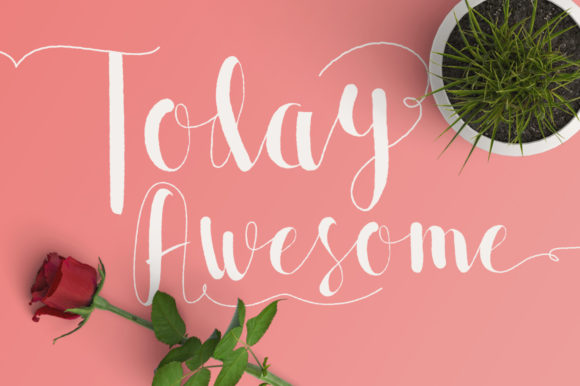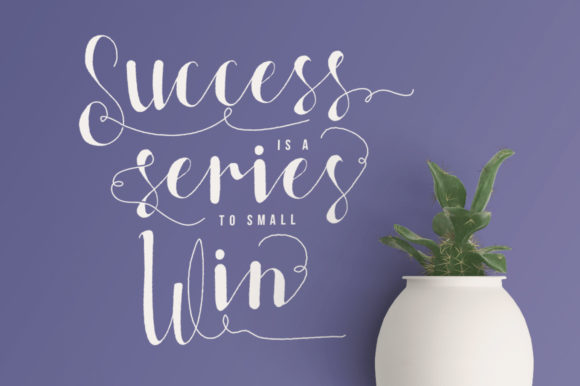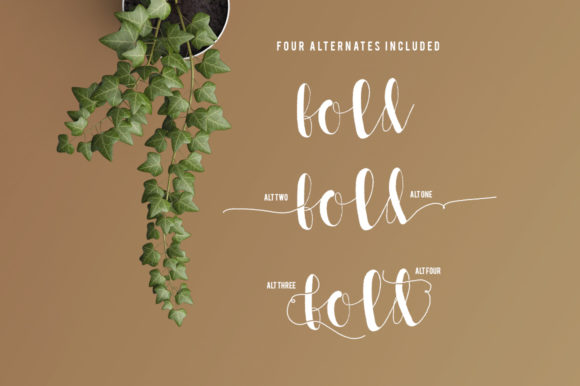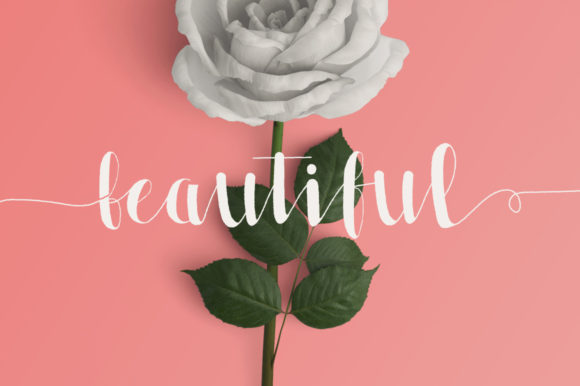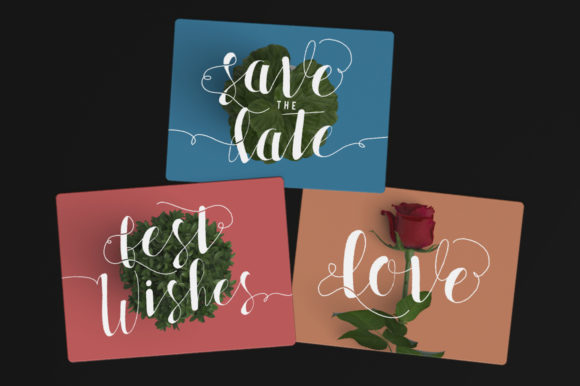
Introducing Allia Font: The Exquisite Handwritten Font for Creative Projects
Are you a designer or crafter looking for a unique and elegant font to elevate your creative projects? Look no further than Allia Font, a beautifully crafted handwritten font that is sure to become a true favorite. With its exquisite design and versatility, Allia Font is perfectly suited for a wide range of applications, from stationery and logos to branding, posters, weddings, and much more.
The Story Behind Allia Font
Allia Font is the brainchild of a talented designer who sought to create a font that would capture the essence of handwritten elegance. With careful attention to detail and a passion for typography, the designer has crafted a font that is both refined and approachable. The result is a font that exudes sophistication and charm, making it perfect for projects that require a touch of personality.
Key Features of Allia Font
So, what makes Allia Font so special? Here are just a few of its key features:
- Exquisite Handwritten Design: Allia Font boasts a beautiful, handwritten design that is sure to capture the hearts of designers and crafters alike.
- Versatility: Whether you’re working on a stationery project, logo, branding campaign, poster, or wedding invitation, Allia Font is the perfect choice.
- Elegant and Refined: With its elegant lines and refined aesthetic, Allia Font is perfect for projects that require a touch of sophistication.
- Easy to Read: Despite its elegant design, Allia Font is surprisingly easy to read, making it perfect for body text and headlines.
Uses for Allia Font
So, what can you use Allia Font for? The possibilities are endless! Here are just a few ideas to get you started:
- Stationery: Create beautiful stationery sets, including notecards, letters, and journals, with Allia Font.
- Logos and Branding: Use Allia Font to create stunning logos and branding materials that will set your business apart.
- Posters and Flyers: Add a touch of elegance to your posters and flyers with Allia Font.
- Wedding Invitations: Make your wedding invitations truly special with Allia Font.
- Crafting Projects: Use Allia Font to add a personal touch to your crafting projects, such as scrapbooking, card making, and more.
Tips for Using Allia Font
Here are a few tips for getting the most out of Allia Font:
- Experiment with Font Sizes: Don’t be afraid to experiment with different font sizes to find the perfect fit for your project.
- Pair with Other Fonts: Try pairing Allia Font with other fonts to create a unique and interesting look.
- Use for Headlines and Body Text: Use Allia Font for both headlines and body text to create a cohesive look.